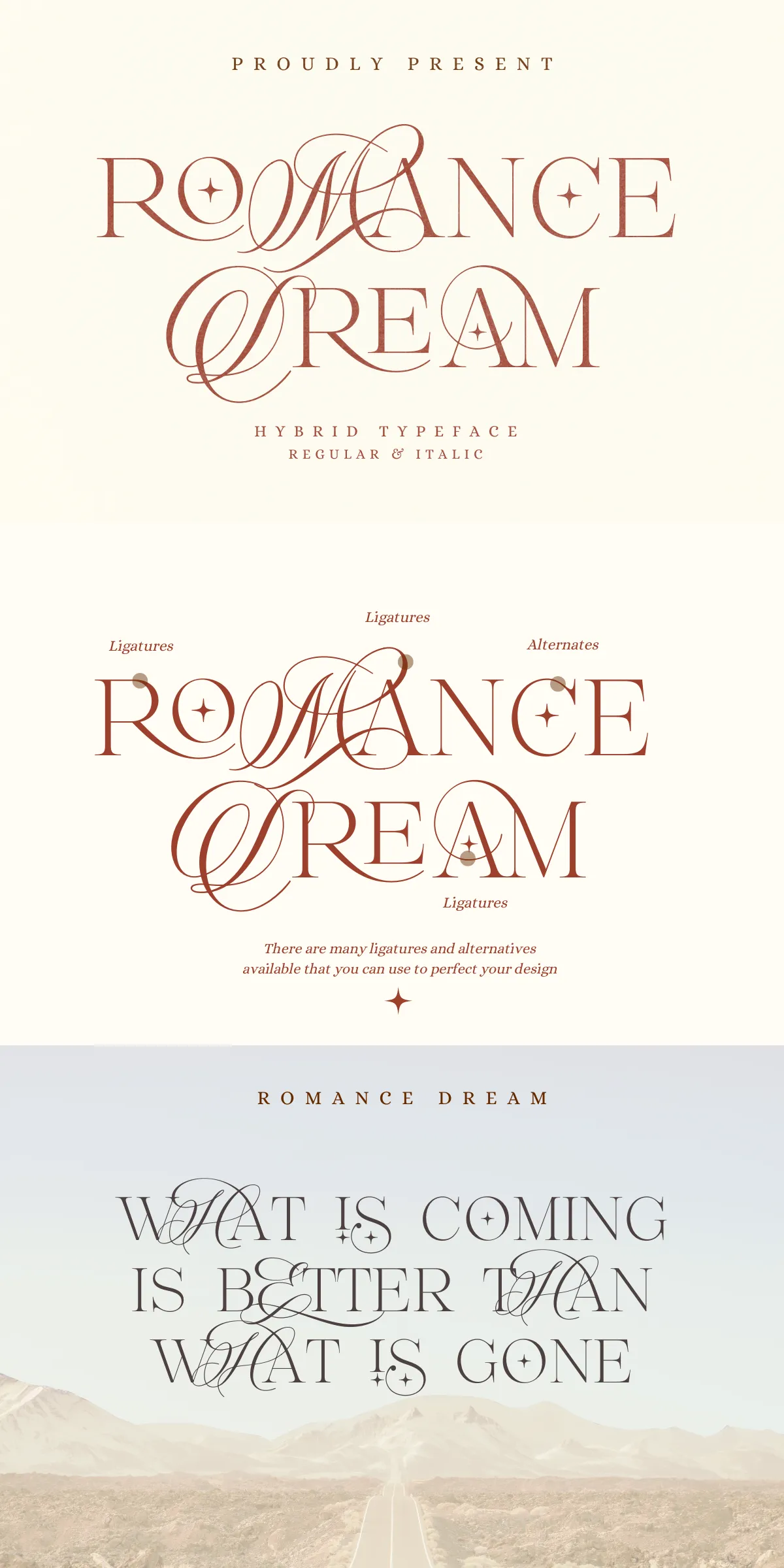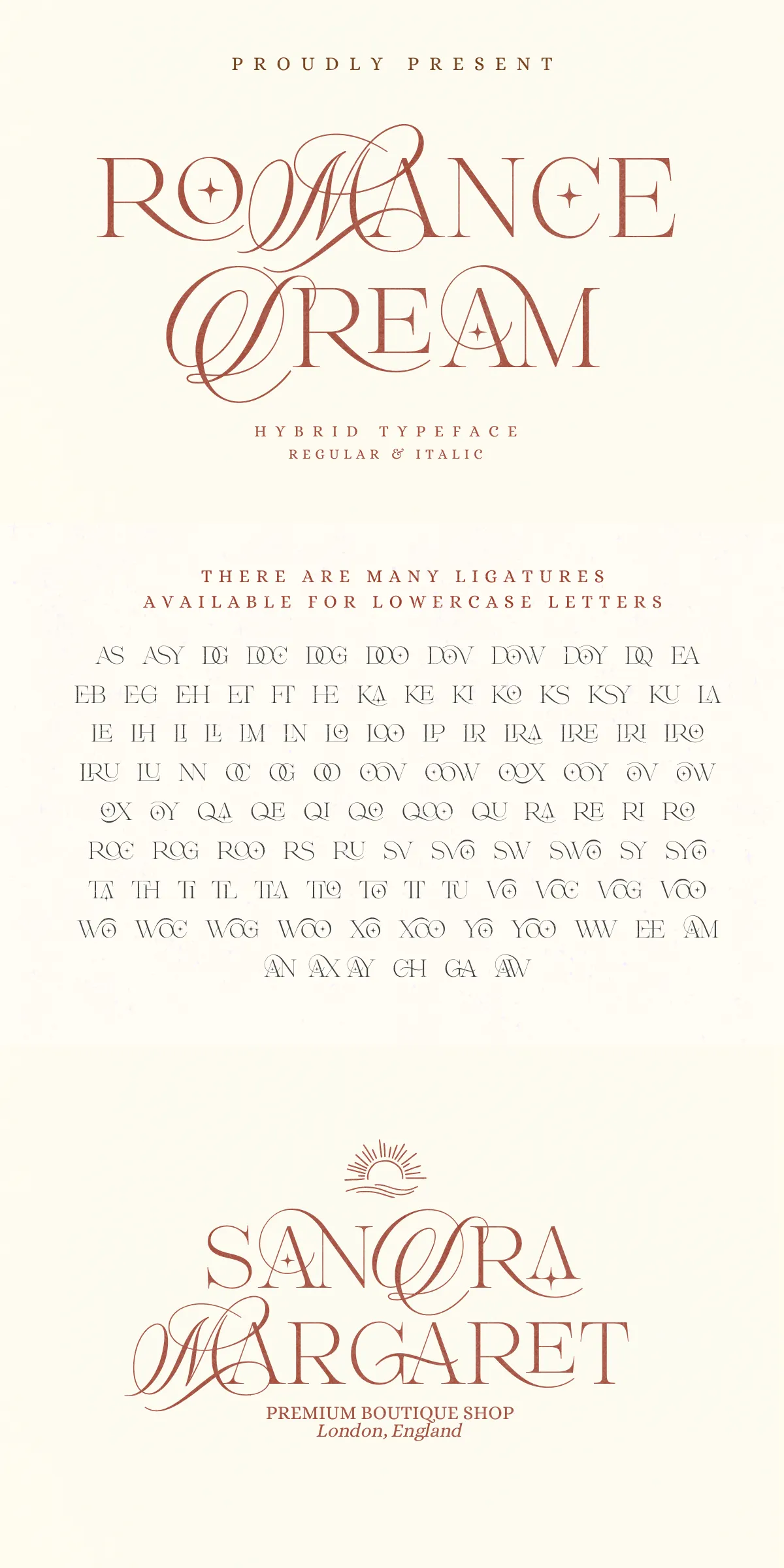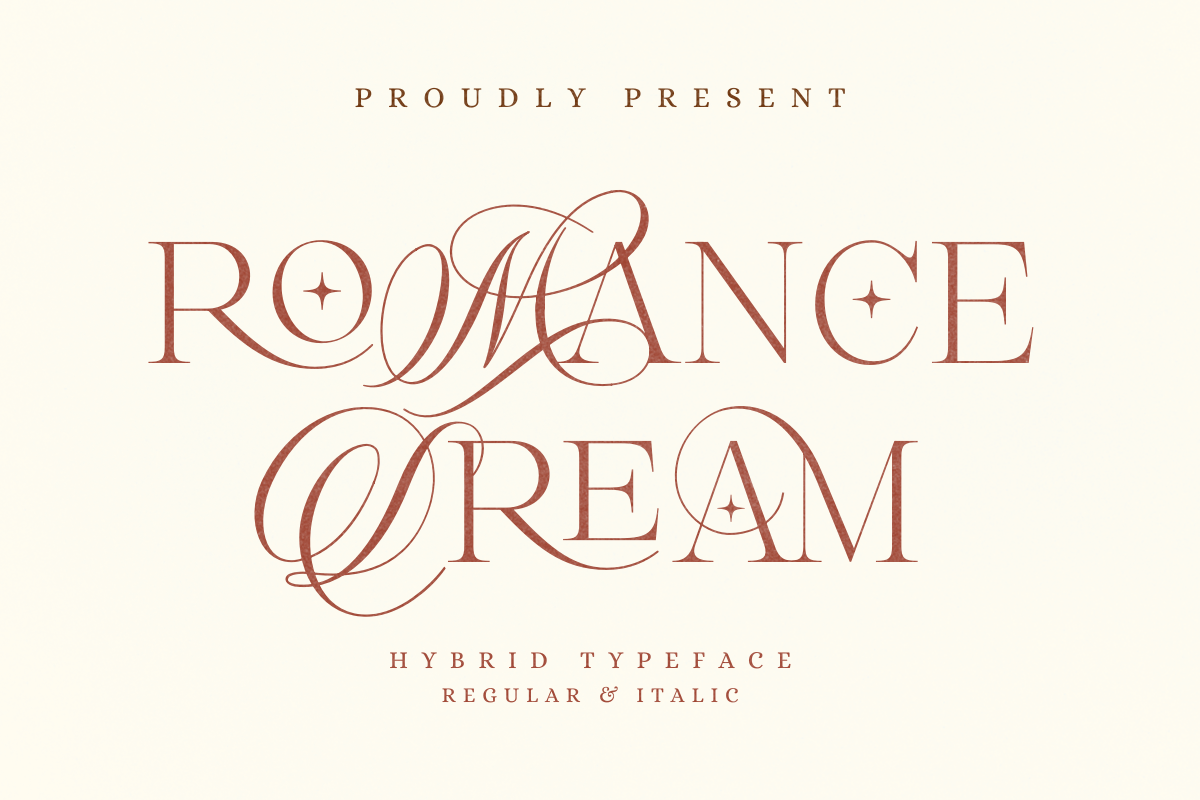
Romance Dream – Hybrid Font
Step into a world where elegance meets modernity with Romance Dream, a masterfully crafted hybrid font that seamlessly blends the fluid grace of calligraphy with the refined structure of a serif typeface. Designed for creators who demand both sophistication and soul in their typography, Romance Dream transforms every word into a visual poem. Whether you’re building a luxury brand identity, designing wedding invitations, creating high-end packaging, or crafting editorial layouts, this font delivers an unforgettable impression that lingers long after the first glance.
Unlock Infinite Design Beauty with 239 Ligatures & 58 Alternates
Romance Dream isn’t just a font—it’s a creative ecosystem. With 239 carefully designed ligatures and 58 unique alternates, you gain the power to craft stunningly original text compositions that feel hand-rendered and deeply personal. Every combination is engineered to enhance flow, harmony, and visual intrigue. Use custom ligatures to connect characters with seamless elegance, or swap in alternate glyphs to inject personality and rhythm into your design. The possibilities are endless—and the results are always breathtaking.
• 58 stylistic alternates — Replace standard letters with ornate or minimalist versions for dramatic contrast and thematic flair.
• 181 ligatures — Eliminate visual breaks between letters, creating fluid, interconnected text that whispers sophistication.
• Dynamic italic variant — Add depth and motion to your design with the elegant Romance Dream Italic, perfect for headlines, quotes, and decorative elements.
• Expanded multilingual support — Covering 96 languages, including French, German, Spanish, Italian, Russian, Japanese, and more—ideal for global projects.
Elevate Every Project with Timeless Elegance
Romance Dream isn’t for the minimalist. It’s for the visionary—the designer who believes typography is an art form. This font transforms ordinary text into a moment of beauty, whether it’s a single word on a label or a full paragraph on a cover. Its hybrid nature creates a unique balance: the softness of calligraphy meets the strength of serifs, producing a font that feels both tender and powerful.
Perfect For:
• Luxury branding & logos — Develop unforgettable identities that exude charm and class.
• Wedding invitations & stationery — Create timeless pieces that reflect love, emotion, and attention to detail.
• High-end packaging & product labels — Add a touch of romance to beauty, wine, and fashion products.
• Editorial design & magazine layouts — Use it for featured articles, pull quotes, or cover text.
• Art prints & digital illustrations — Let Romance Dream bring soul and movement to your creative works.
Don’t just type—express. Don’t just design—create art. Romance Dream empowers you to go beyond functionality and into the realm of emotional storytelling through typography. With its rich detail, expressive alternates, and global-ready features, it’s not just a font—it’s your creative companion.